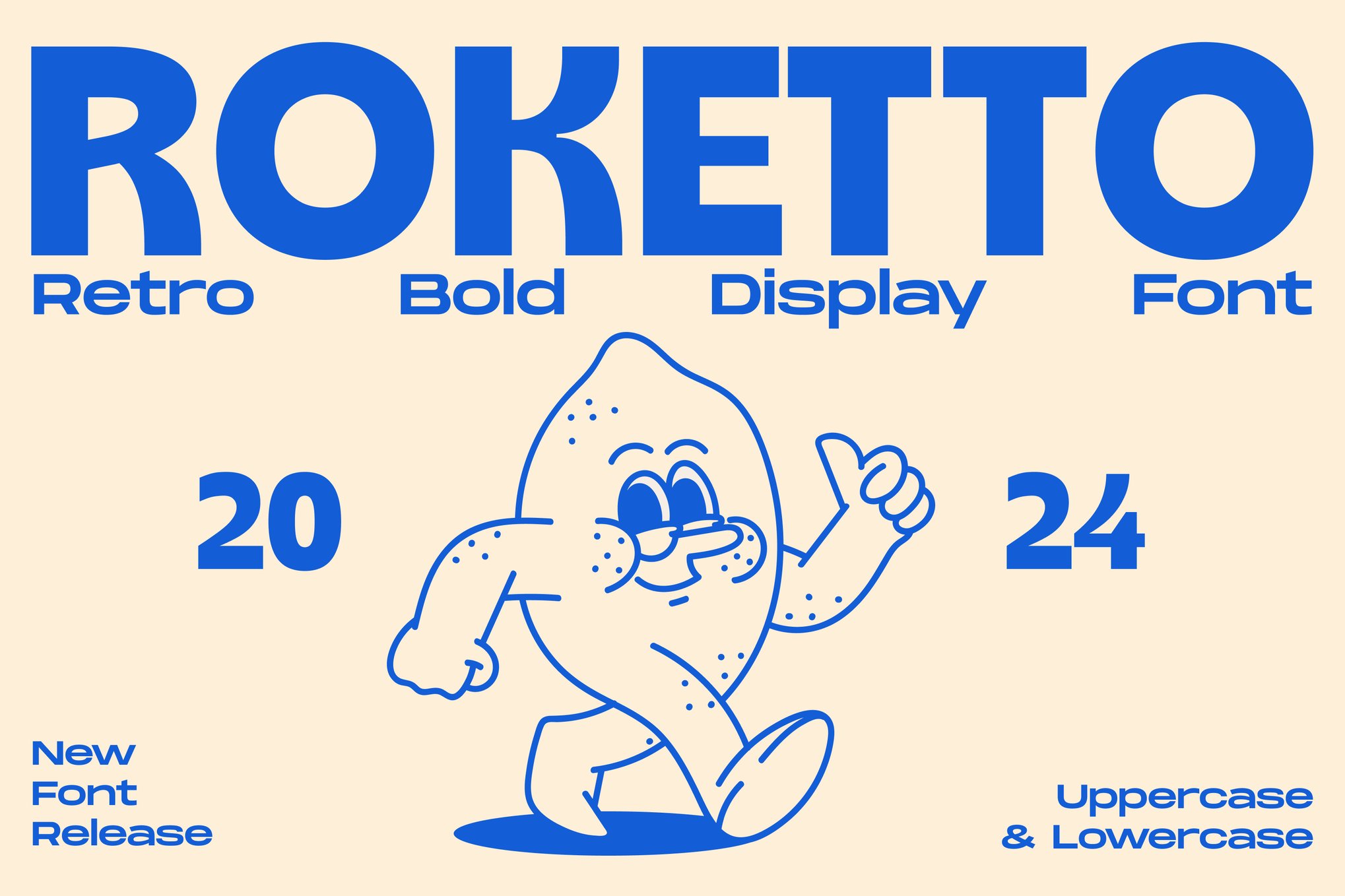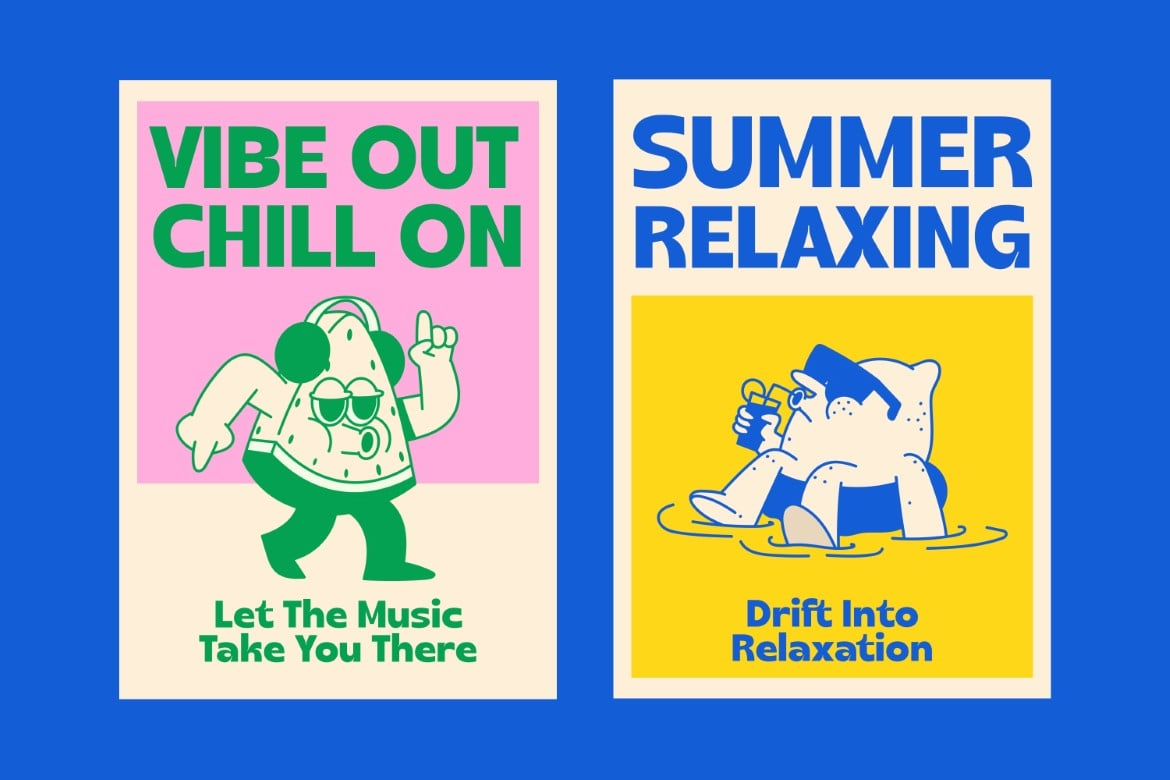
Roketto – Retro Bold Display Font
Roketto – Retro Bold Display Font is a versatile typeface ideal for various projects, including logos, branding, posters, blog headers, advertisements. The free version includes a full set of uppercase and lowercase letters, available in OTF format.
Roketto – Retro Bold Display Font